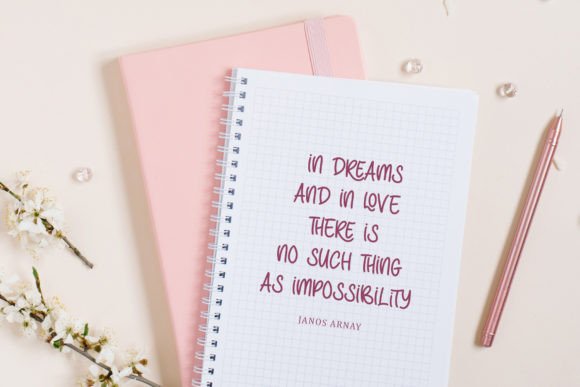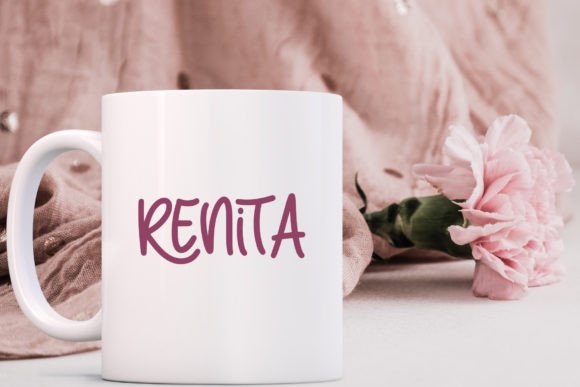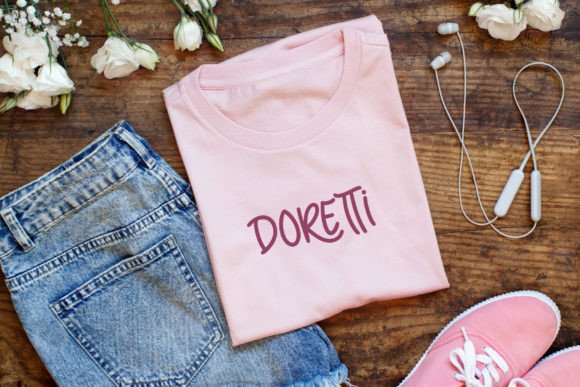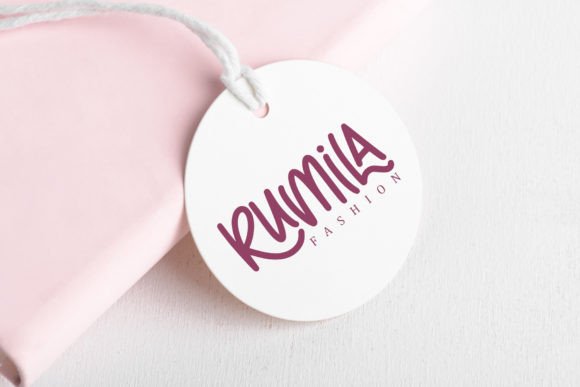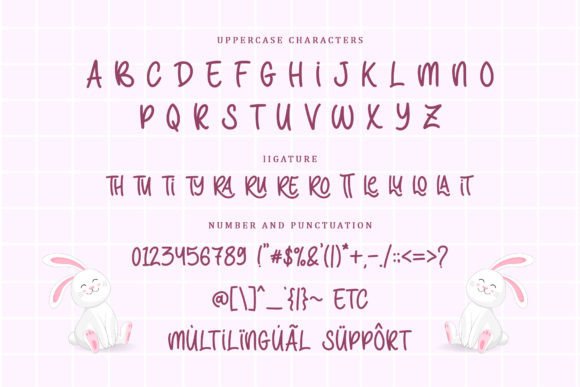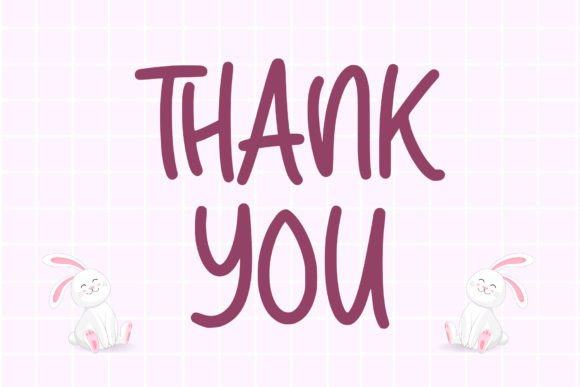
Introduction to Rabit Style Font
As a designer, have you ever found yourself stuck in a creative rut, searching for the perfect font to bring your project to life? I know I have! Remember that moment when you stumbled upon a quirky, handwritten font that made your design pop? That’s exactly what we’re going to dive into today – the delightful Rabit Style Font.
This charming font has been a game-changer for many creatives, adding a touch of whimsy to their projects. Whether you’re crafting, designing digitally, or creating presentations, Rabit Style Font is the perfect addition to your design resource arsenal. Its unique, handwritten style is sure to captivate your audience and leave a lasting impression.
Key Features of Rabit Style Font
- Rabit Style Font is a unique and creative design resource ideal for various projects, including digital art and graphic design.
- Rabit Style Font’s unique, hand-drawn style makes it an excellent choice for designers seeking a distinctive and creative look for their designs.
Honest Review: Rabit Style Font
One of the things that stands out about the Rabit Style Font is its high quality. The font is well-designed, with clean lines and a professional look that makes it suitable for a variety of uses.
Overall, I’m impressed with the Rabit Style Font. It’s a solid choice for designers looking for a high-quality font that’s easy to use. While it may have some limitations, it’s definitely worth considering for your next creative project.
Rabit Style Font
Tips for Getting the Most Out of Rabit Style Font
To get the most out of the Rabit Style Font, use it on a transparent background to create a clean and modern look. You can also experiment with different font sizes and colors to achieve the desired effect.
The Rabit Style Font is ideal for creative projects, such as logos, brochures, and social media graphics. It’s also great for designing invitations, menus, and other print materials. With its unique and stylish look, the Rabit Style Font is sure to make your designs stand out.